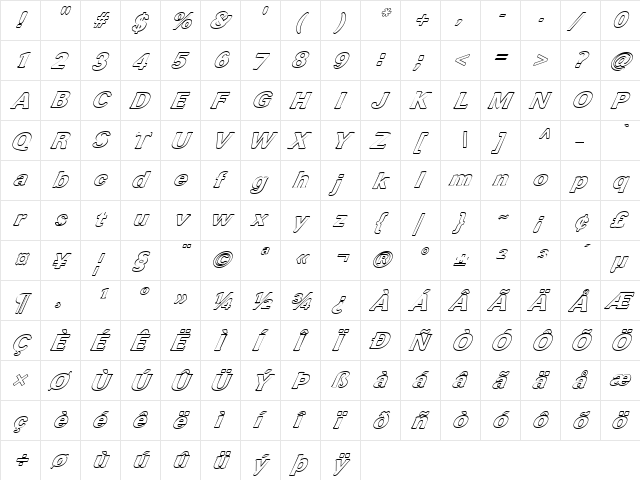
FZ ROMAN 37 HOLLOW ITALIC Normal Font Preview
FZ ROMAN 37 HOLLOW ITALIC Normal
FZ ROMAN 37 HOLLOW ITALIC Normal Font Details
Design Context for FZ ROMAN 37 HOLLOW ITALIC Typeface
FZ ROMAN 37 HOLLOW ITALIC takes a measured approach to typography — its balanced proportions and neutral character make it a reliable workhorse for both digital and print work. The dynamic lean of this cut emphasises speed and emphasis in any layout.